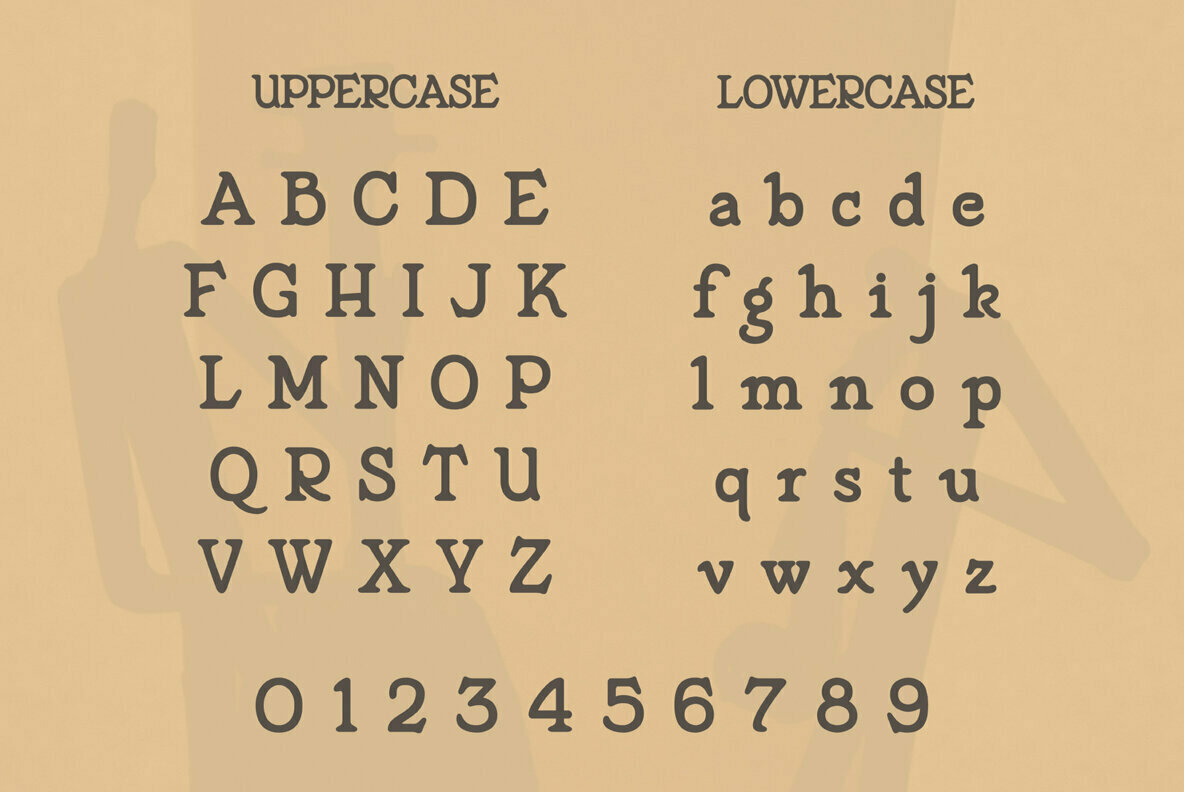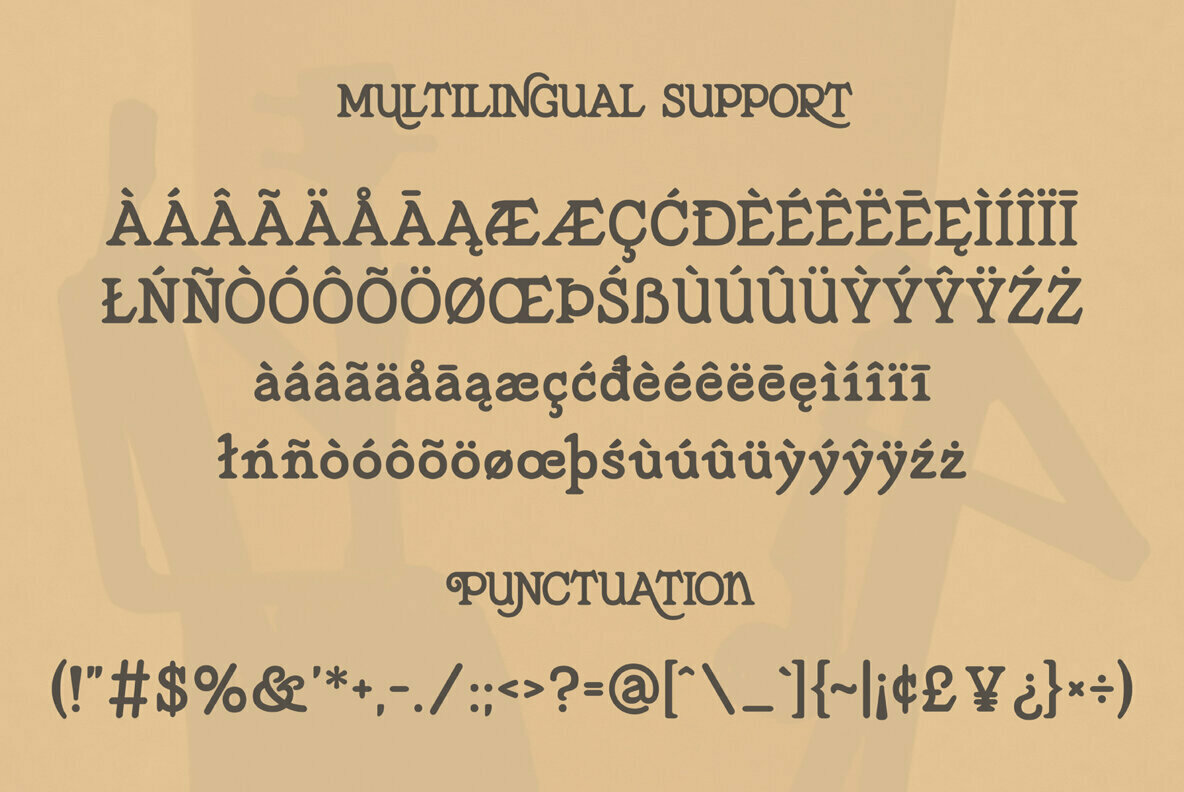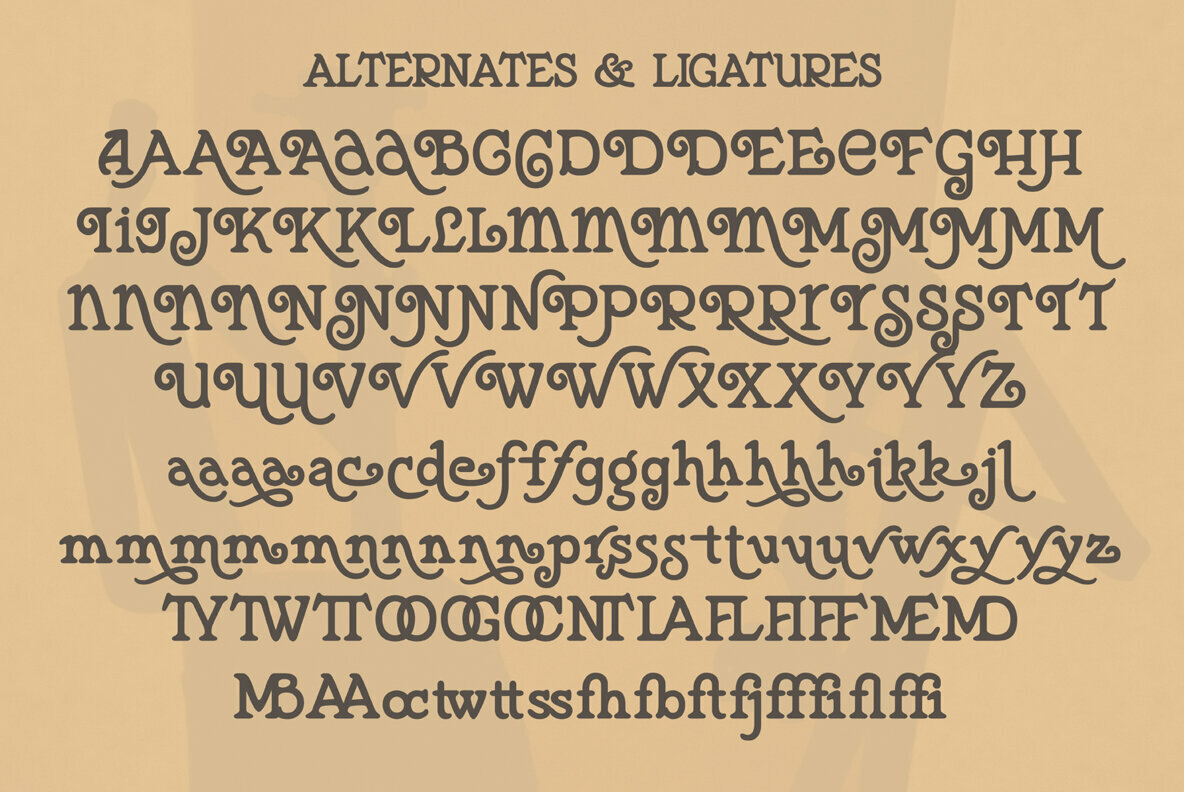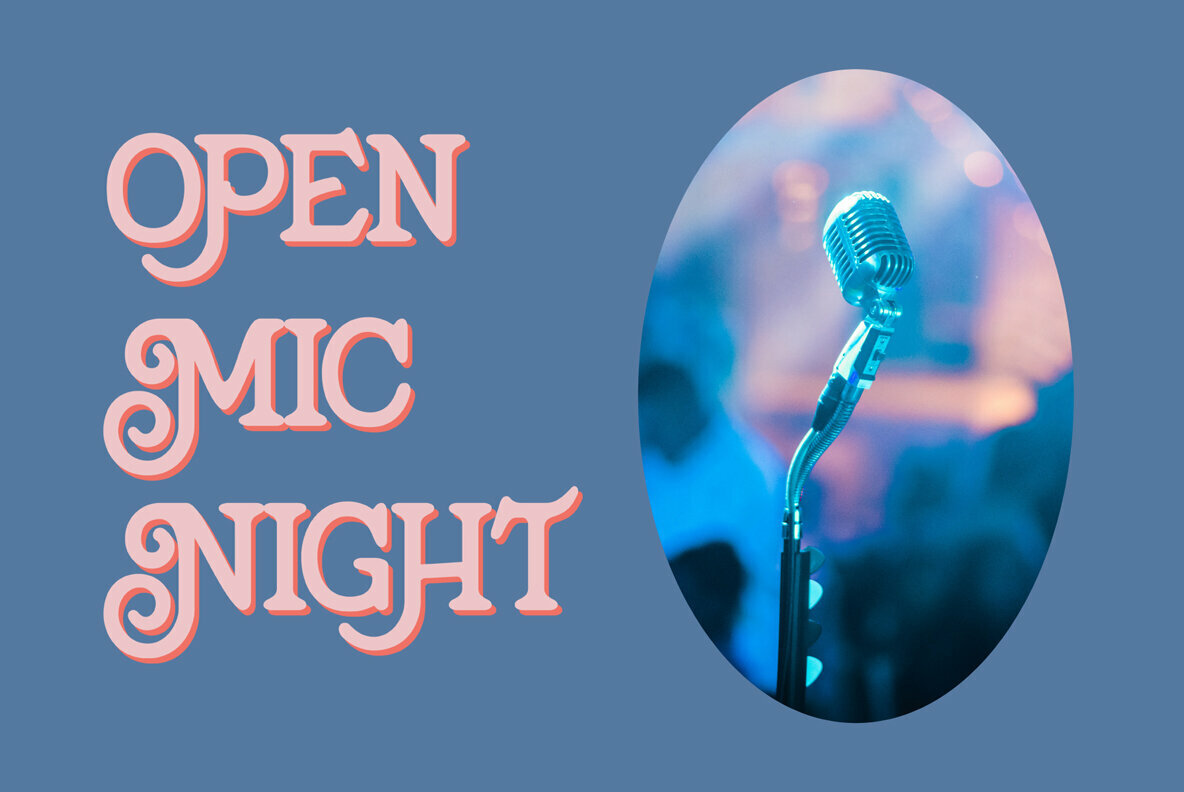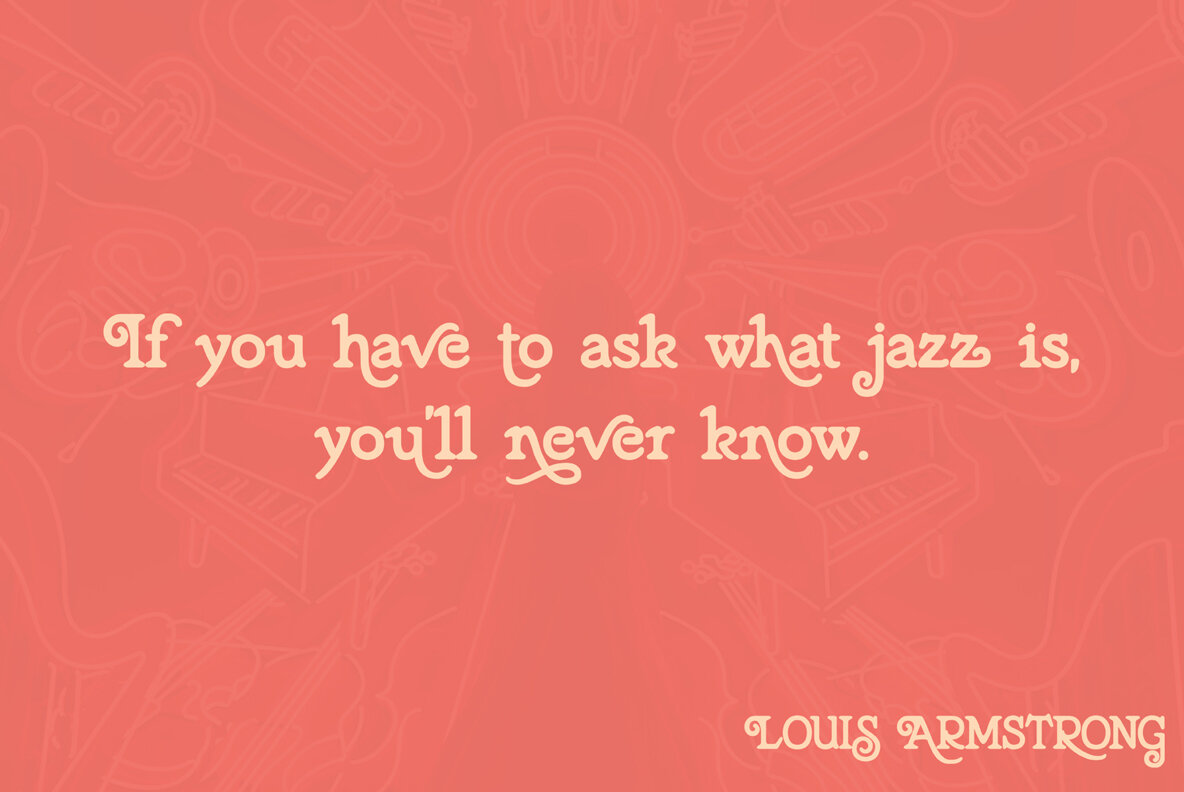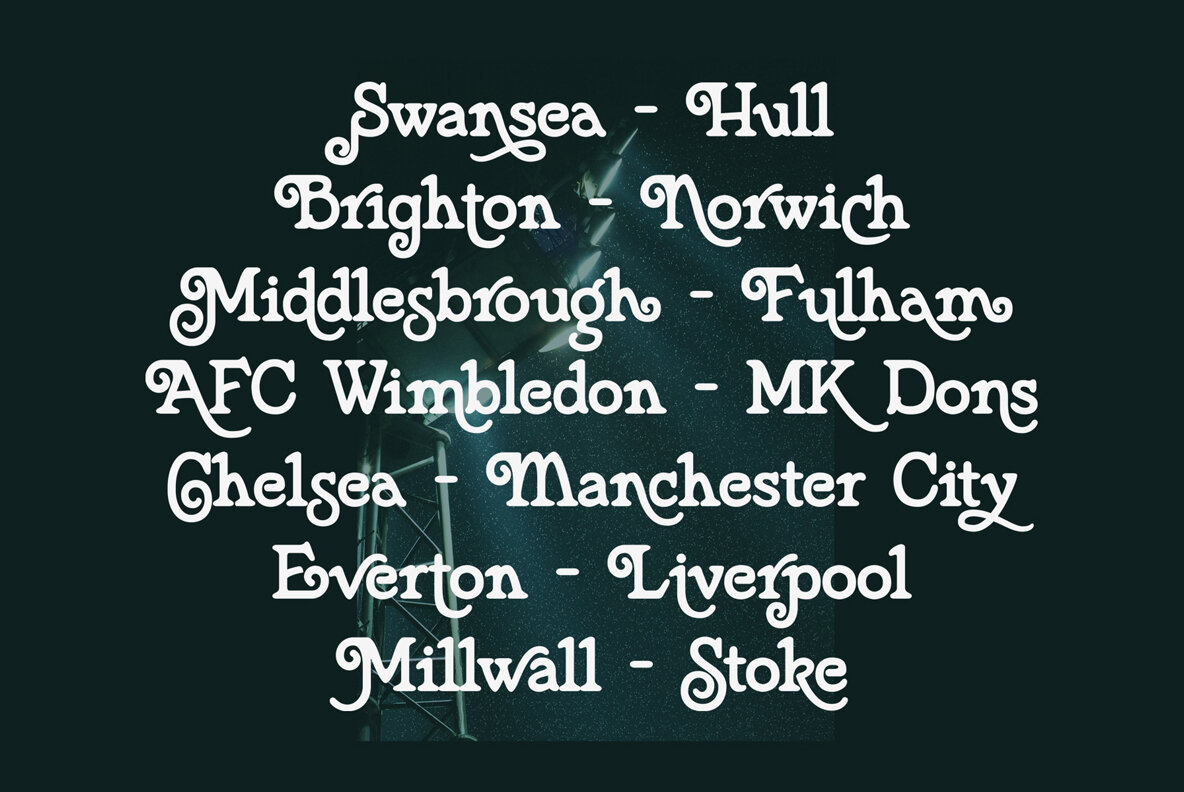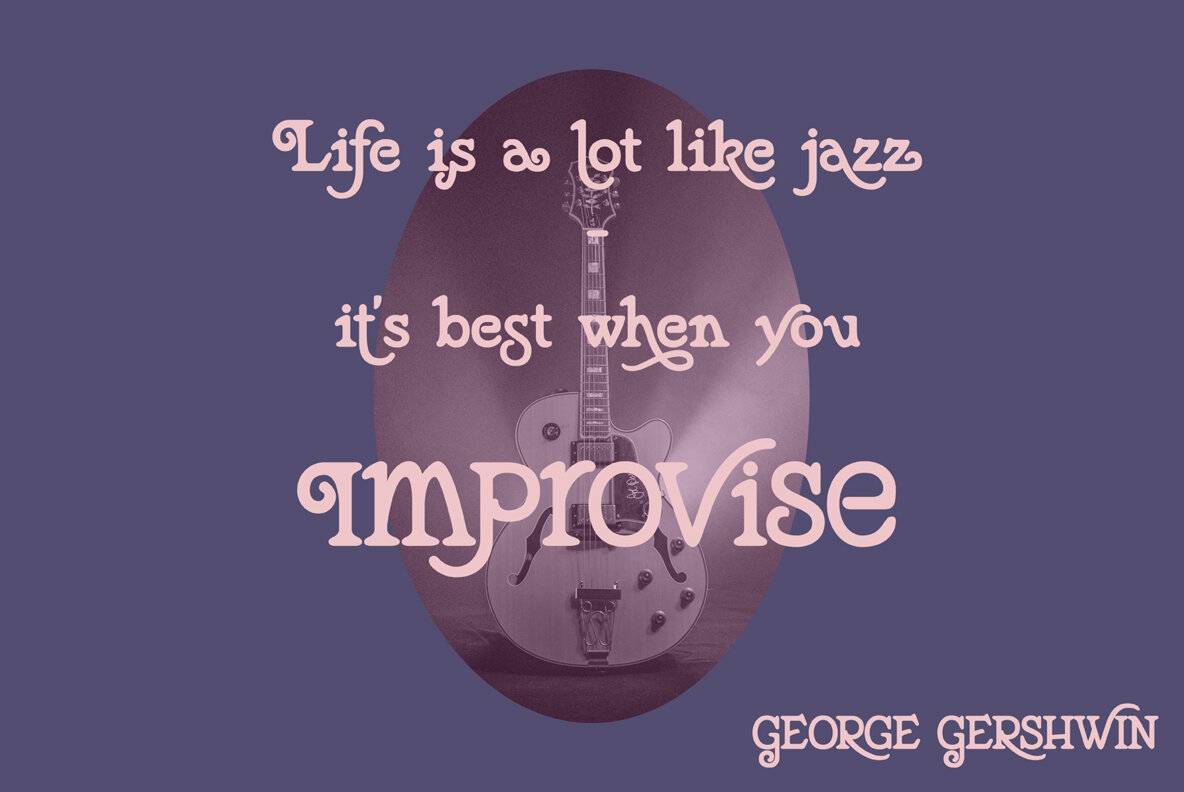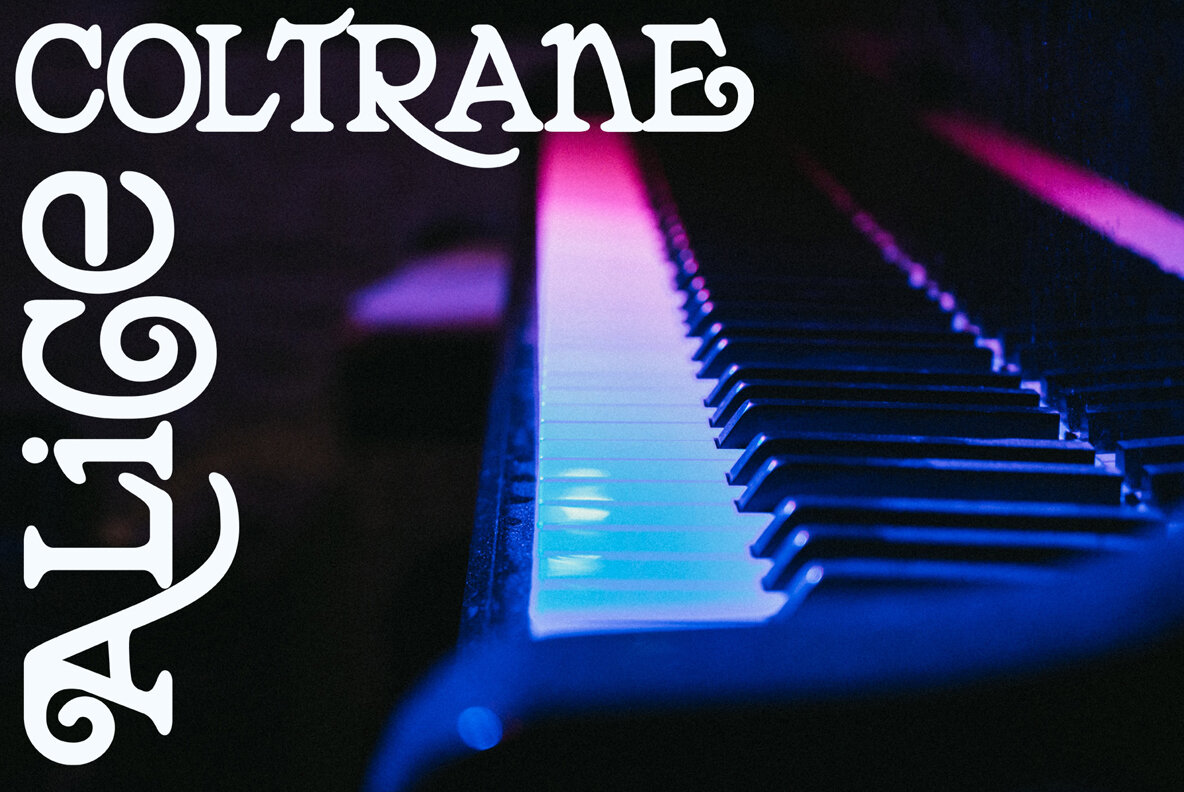
Coltrane Flair
Coltrane Flair captures the essence of the 1970s with its unique blend of swashed typefaces and a subtle psychedelic influence. Designed by Bartosz Wesolek, this rounded serif font is perfect for those seeking to make a visual impact. Ideal for logos, titles, branding elements, and social media graphics, Coltrane Flair stands out with its extensive range of alternates and discretionary ligatures.Coltrane Flair: A Modern Vintage Serif